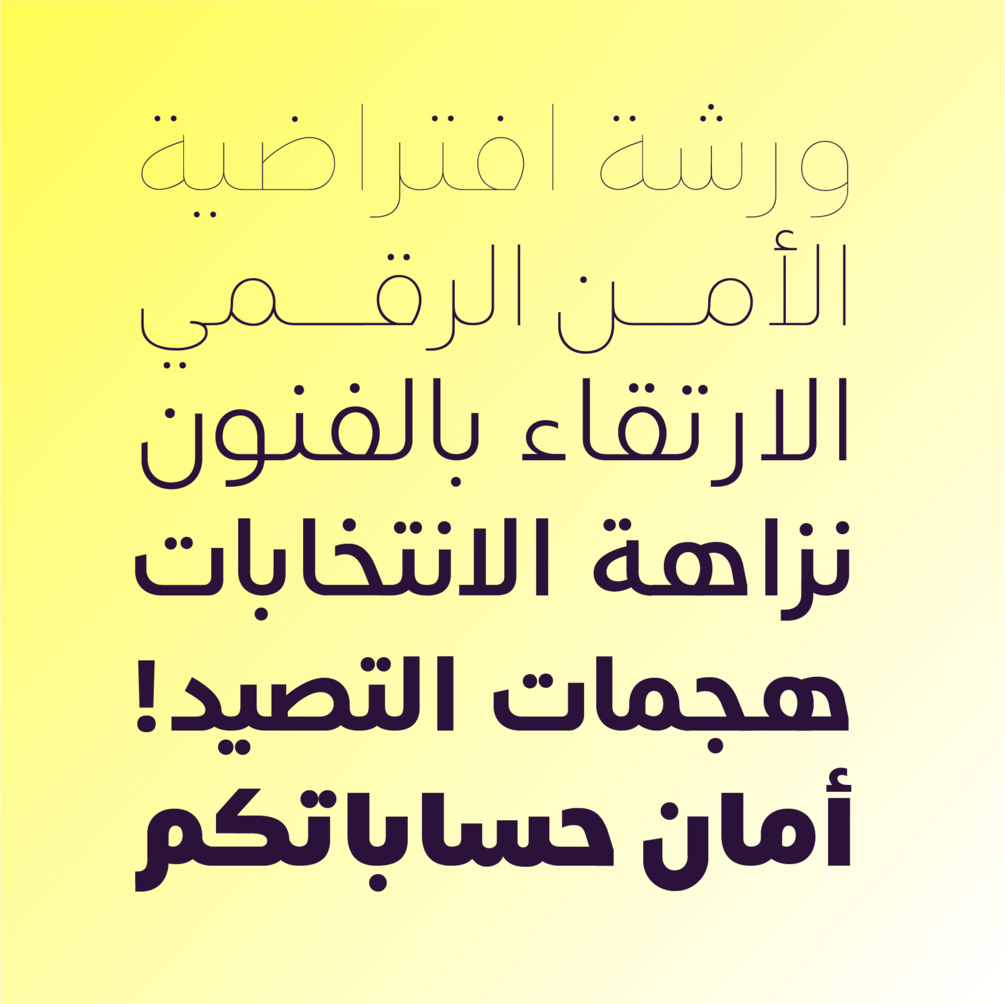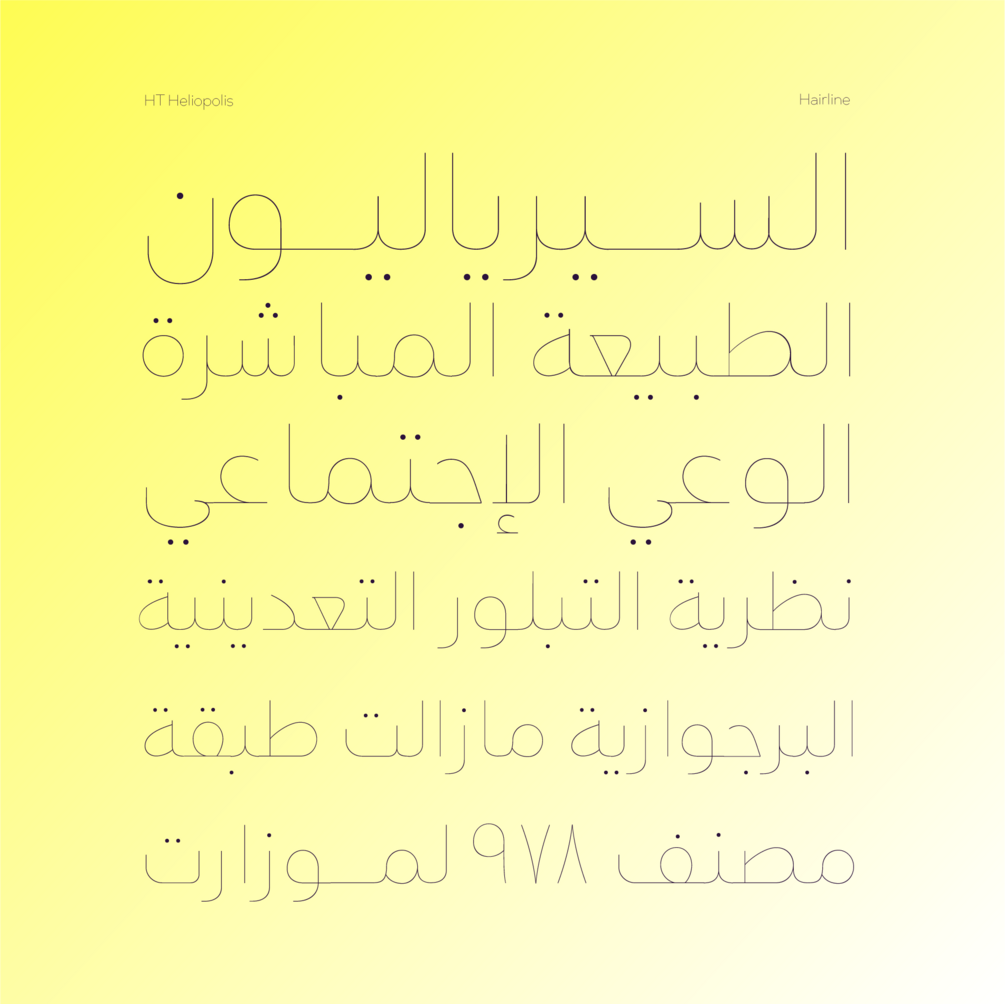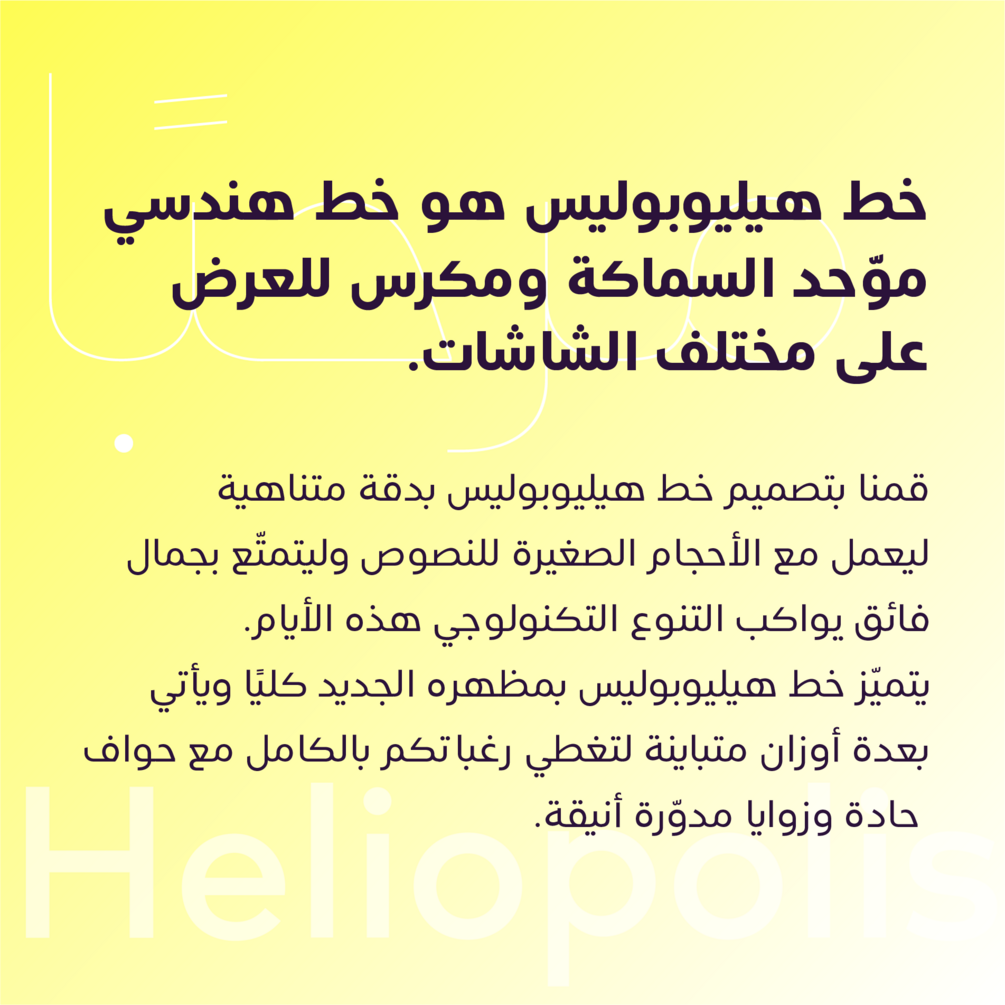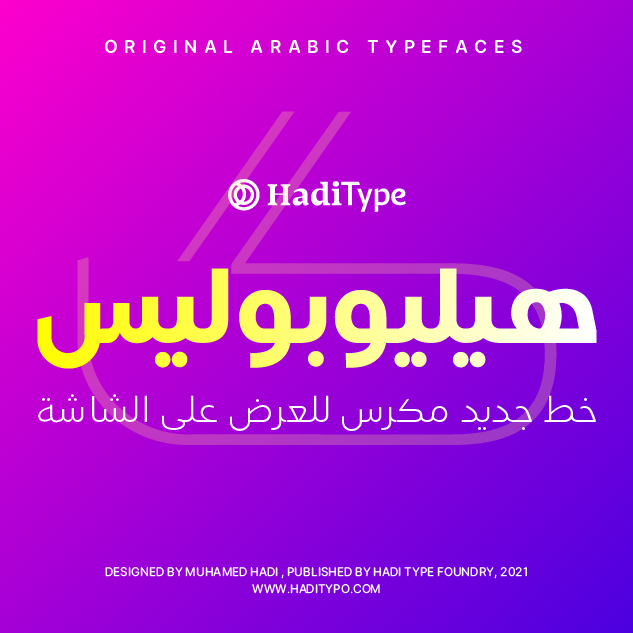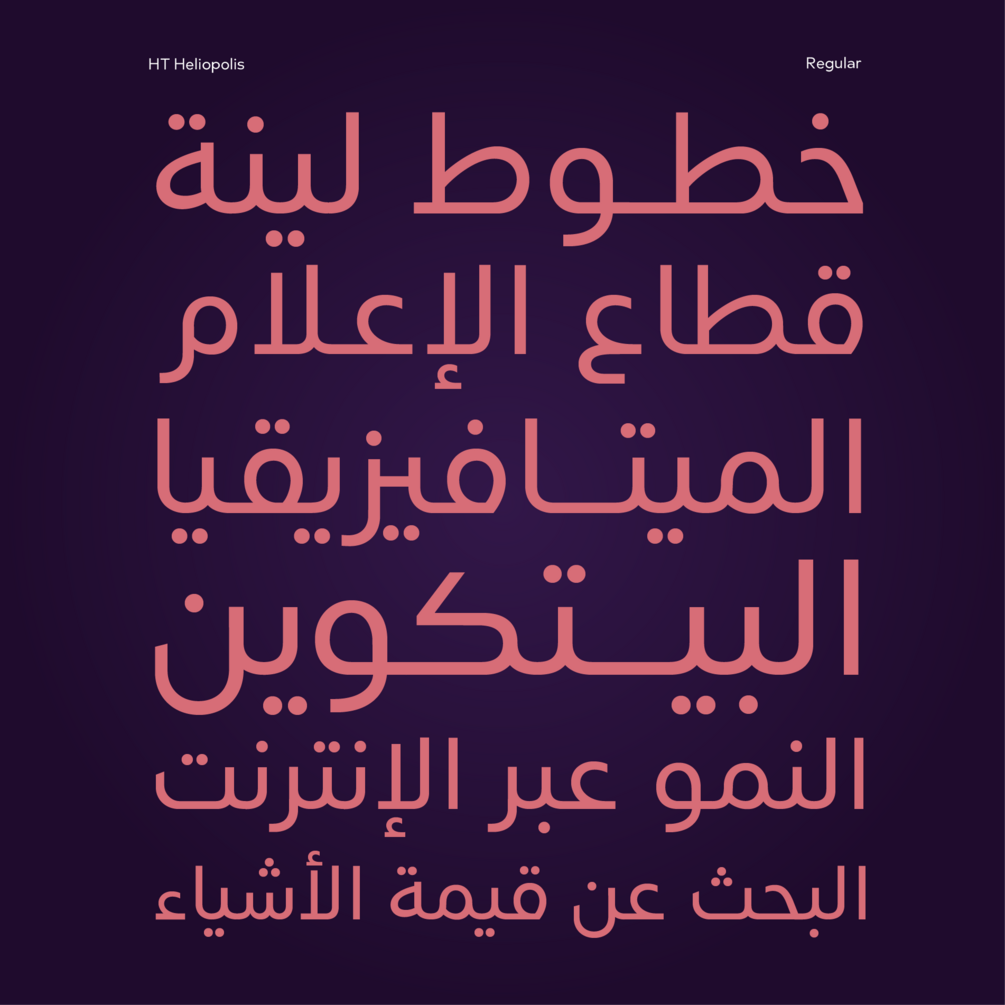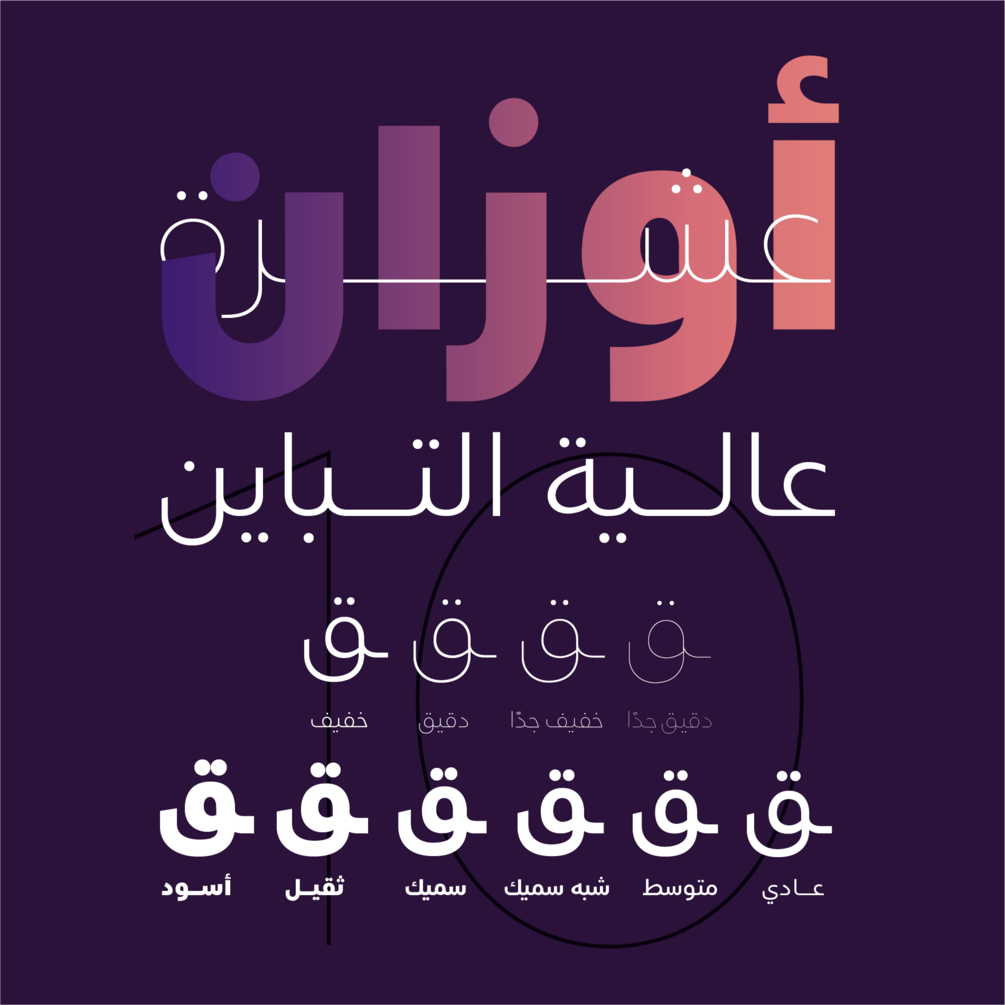
HT Heliopolis
Heliopolis Font is a Kufic multilanguage typeface drawn  for screens. We meticulously designed Heliopolis Font to work with small text sizes while maintaining exceptional beauty that aligns with today's technological diversity. The Heliopolis Font features an entirely new look and comes in several contrasting weights to fully meet your preferences, with sharp edges and elegant rounded corners.
Heliopolis Font supports Arabic, Persian, and Urdu languages.
Styles: 10 Style
Supported Languages: Arabic, Persian, Urdu, North-African Arabic, Kurdî, & Turkish.
Designer: Muhammed Hadi
Foundry: HadiType Foundry